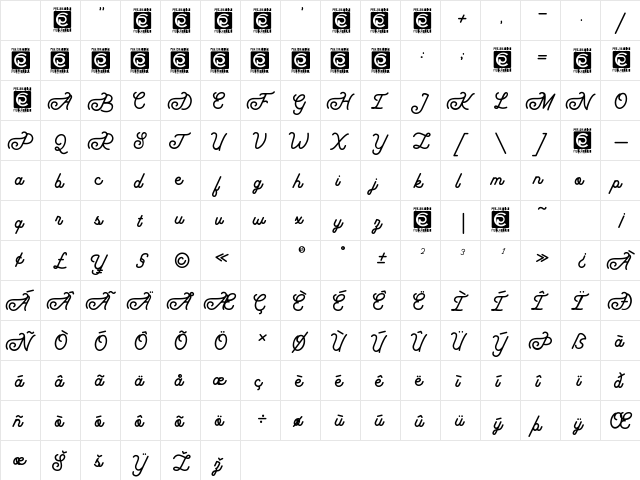
Complete Grandmora Regular glyph index. Displaying only characters natively supported by Grandmora Regular font.
Grandmora is a composed and adaptable typeface that performs quietly and consistently across a wide range of design contexts.